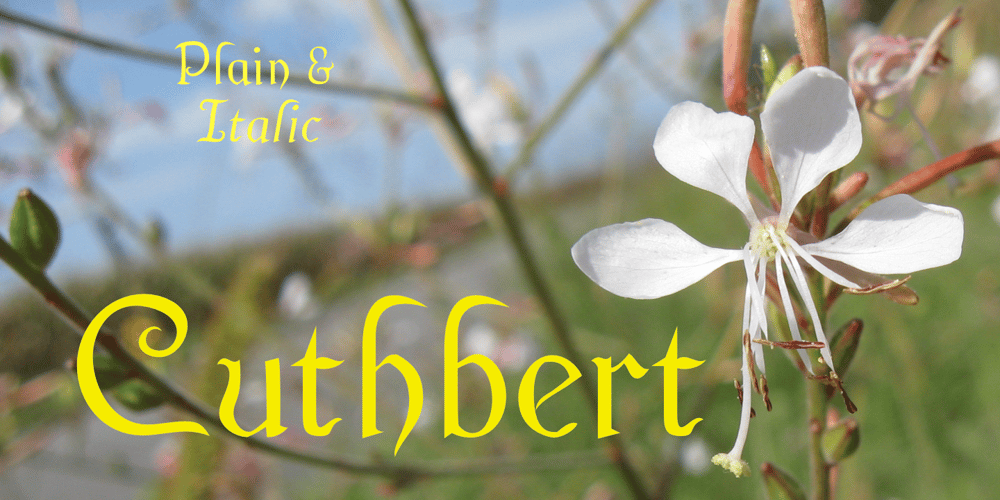
Cuthbert Font Family was designed by Robert Schenk and published by Ingrimayne Type. Cuthbert contains 3 styles and family package options. Cuthbert is an unusual, semi-script, pseudo-medieval typeface. The capital letters are exuberant and whimsical. However, both the regular and italics styles are graceful enough to be used for purposes such as invitations. Included as a third member of the family is Cuthbert-ZNick, a corroded, distorted version of Cuthbert Regular.